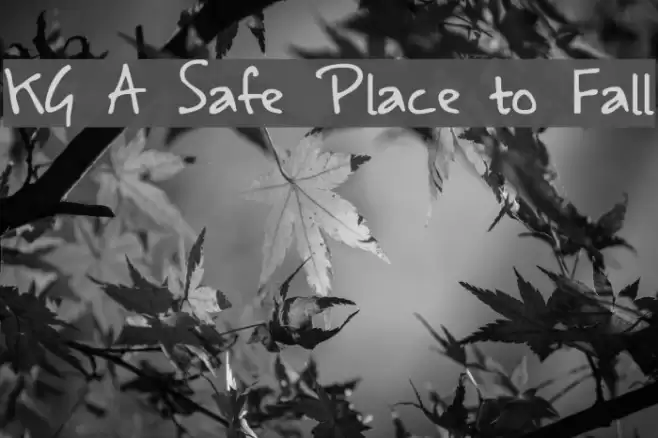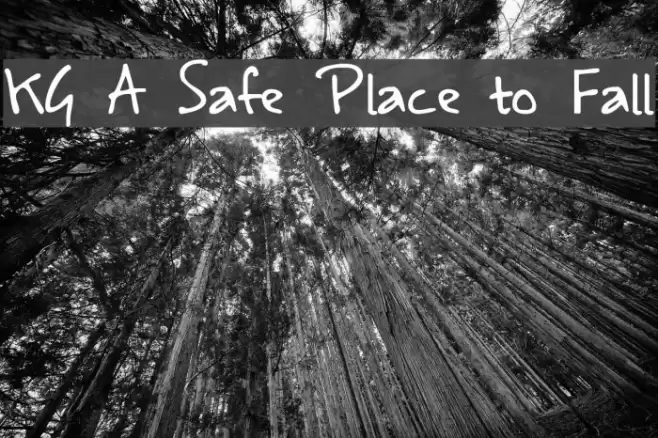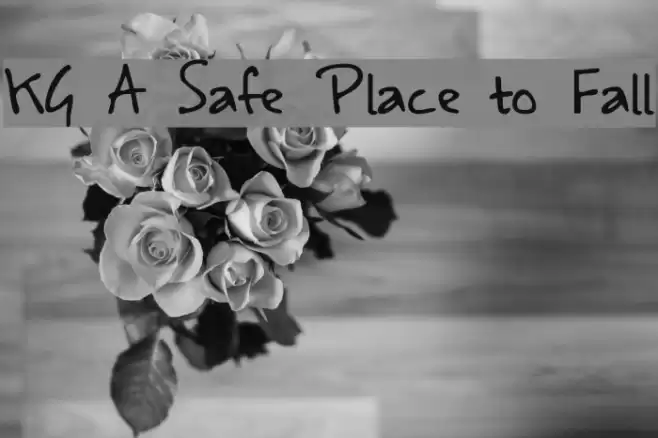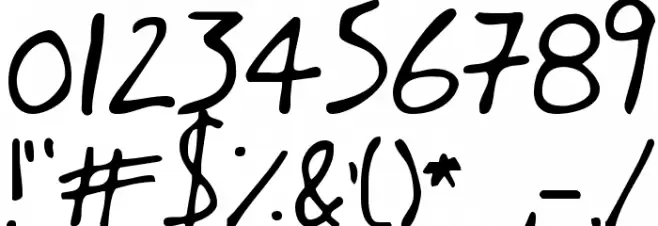
KG A Safe Place to Fall Font
KG A Safe Place to Fall Description
This font exudes a playful and casual handwritten style, characterized by its irregular and organic letterforms. The strokes are uneven, giving it a natural and personal touch, reminiscent of a child's handwriting or a casual note. The uppercase and lowercase letters maintain a consistent flow, with rounded edges and a slight tilt, adding to its informal charm. The numbers and special characters follow the same whimsical style, ensuring a cohesive look across all text. This font is perfect for projects that require a friendly and approachable aesthetic, such as children's books, personal invitations, or informal branding.
A playful, handwritten font with an informal and casual style from Uncategorized fonts.
- Proposed Projects: Ideal for children's books, personal invitations, informal branding, and playful designs.
- Overall Style: Casual
- Use Case: Headlines, Informal text, Creative projects